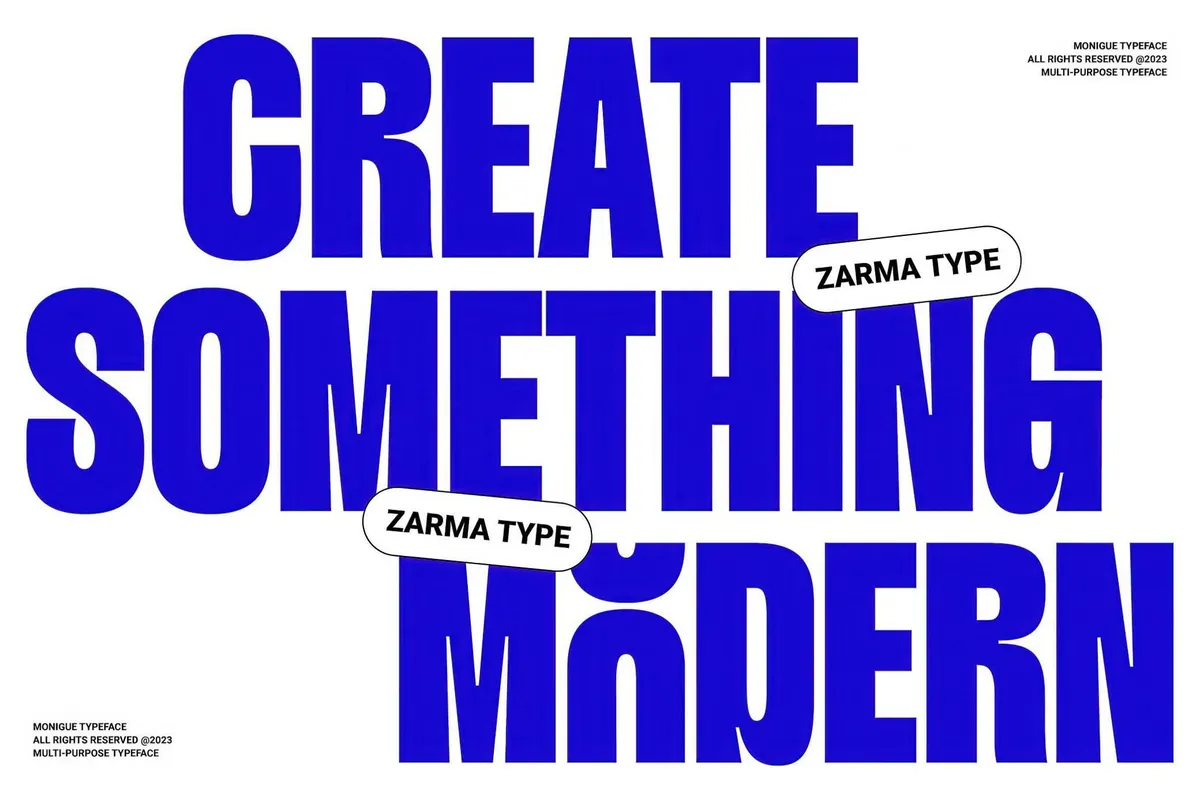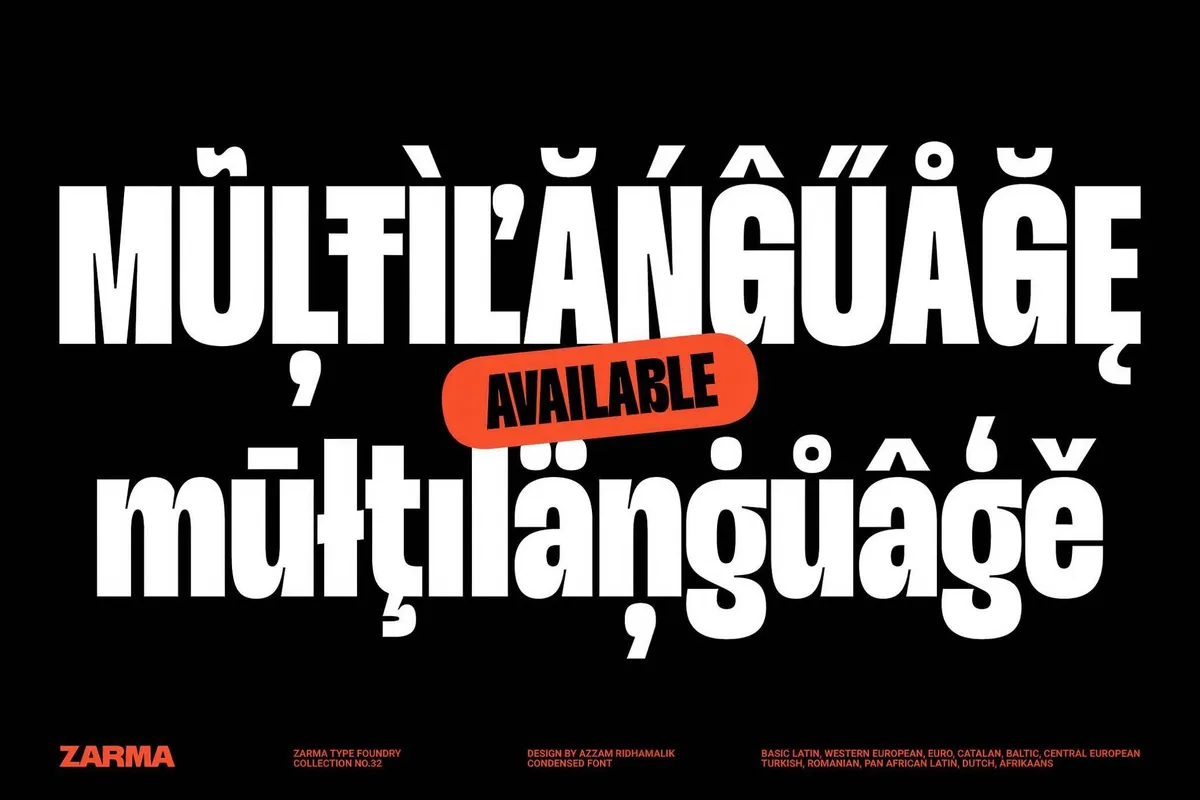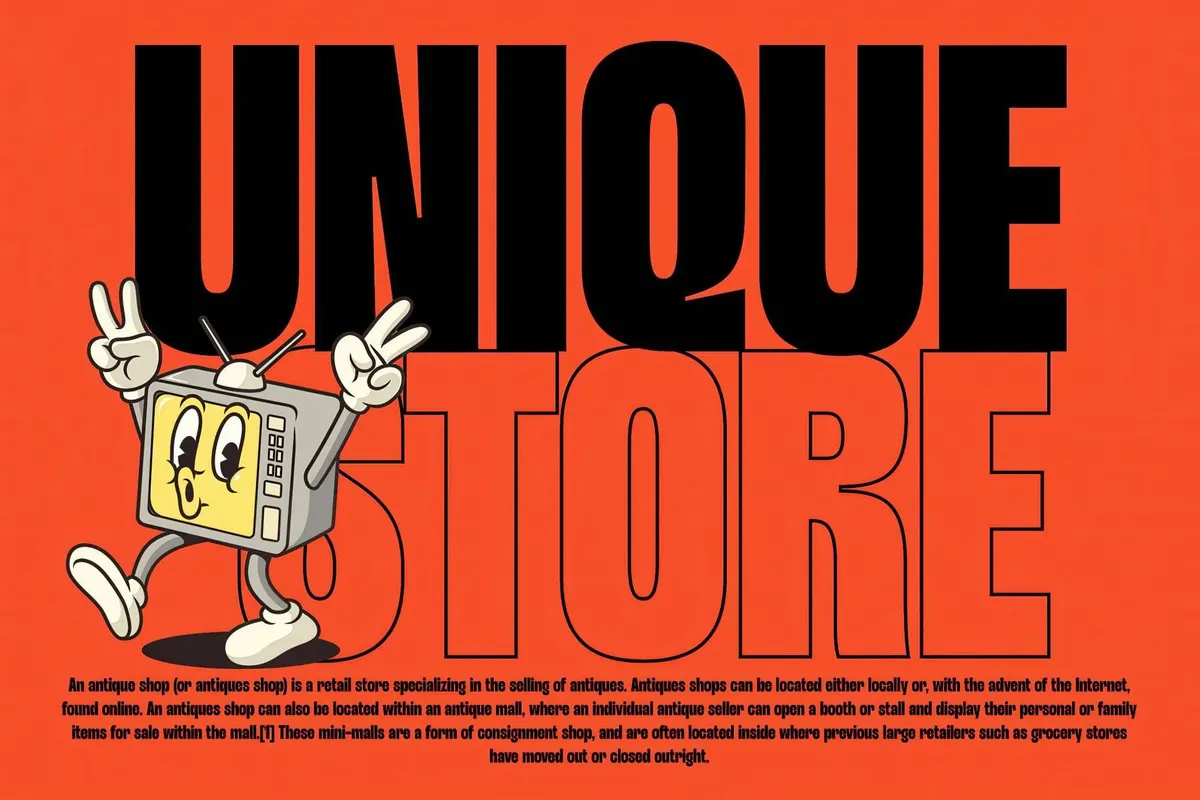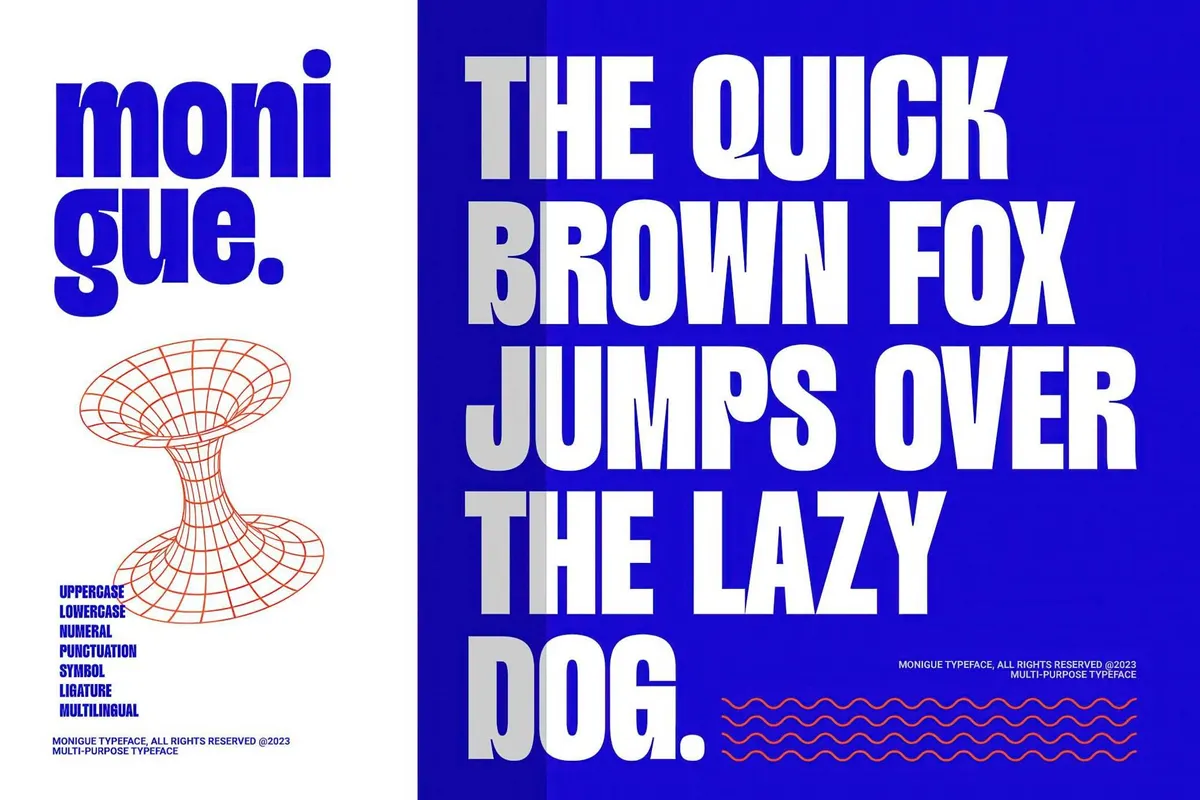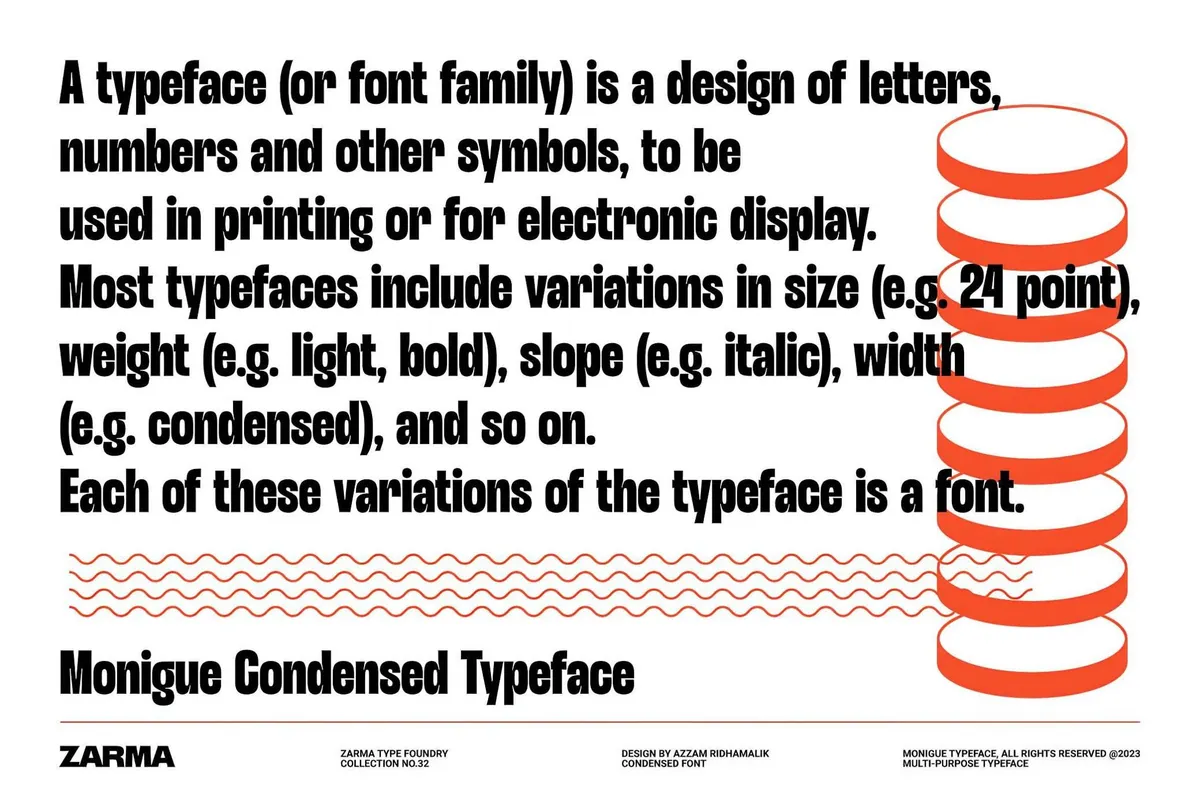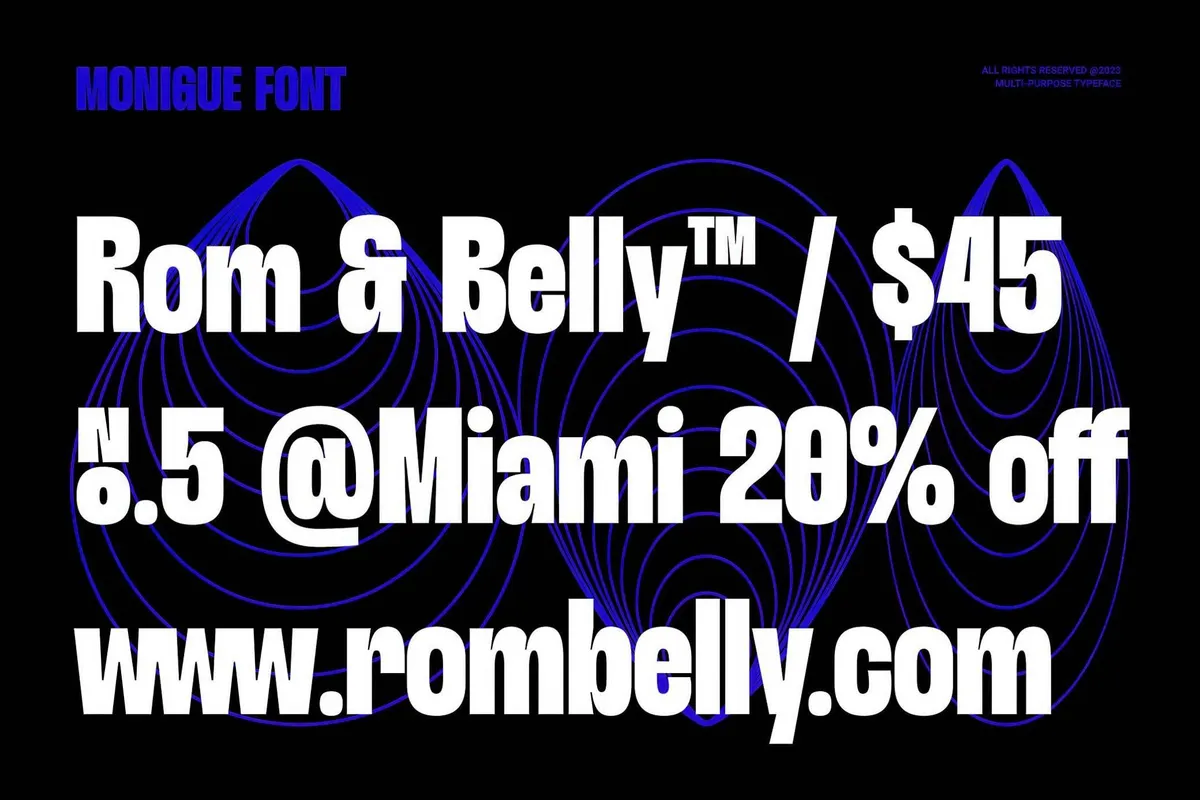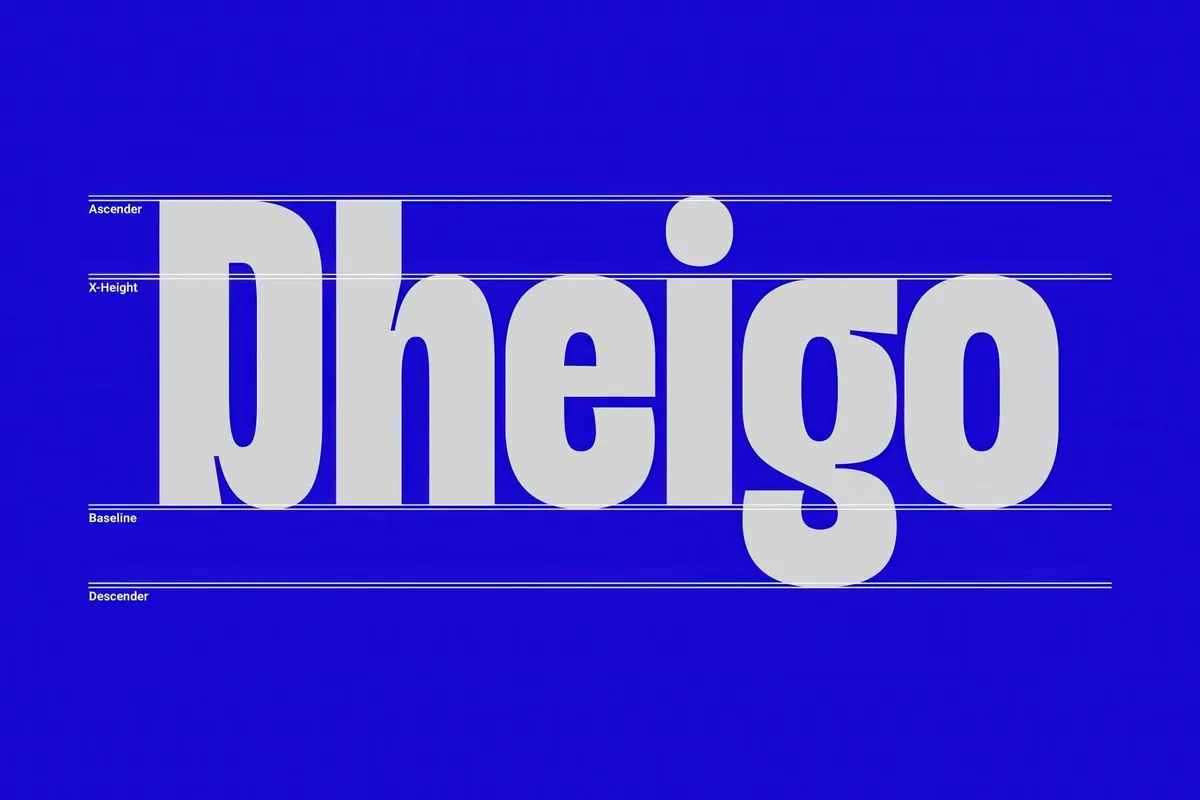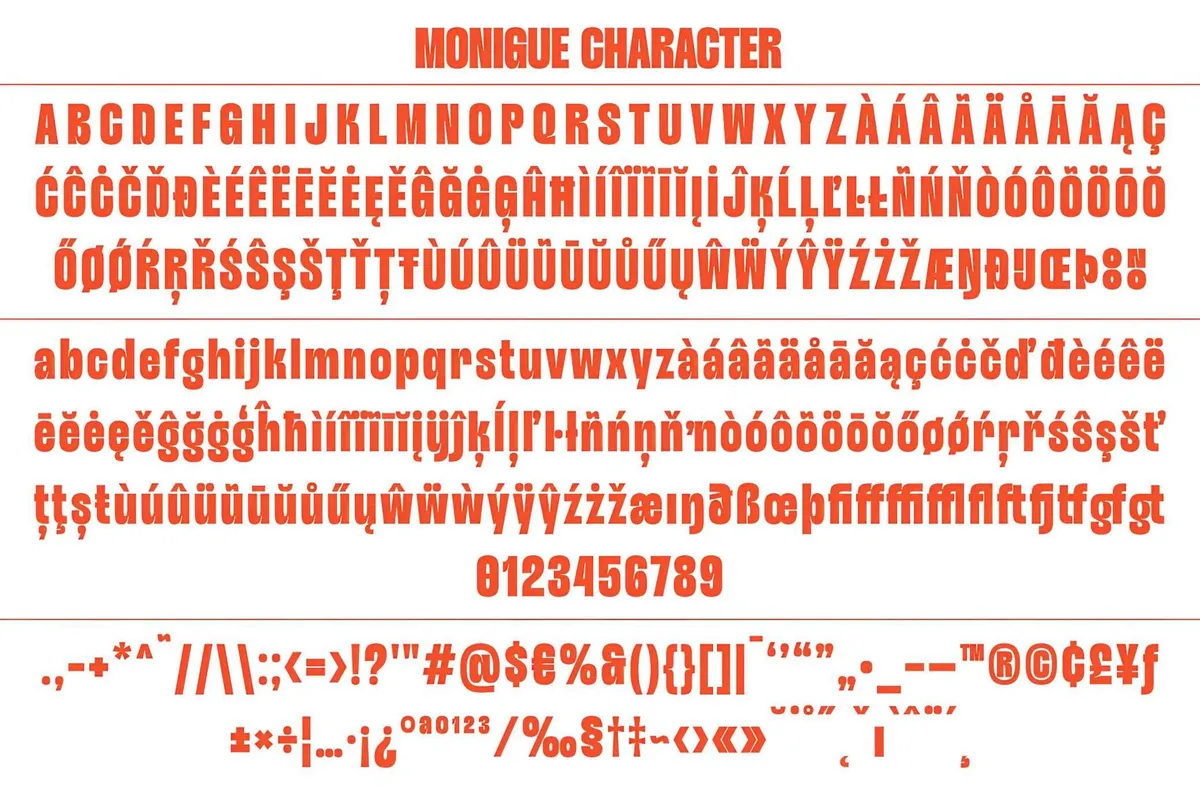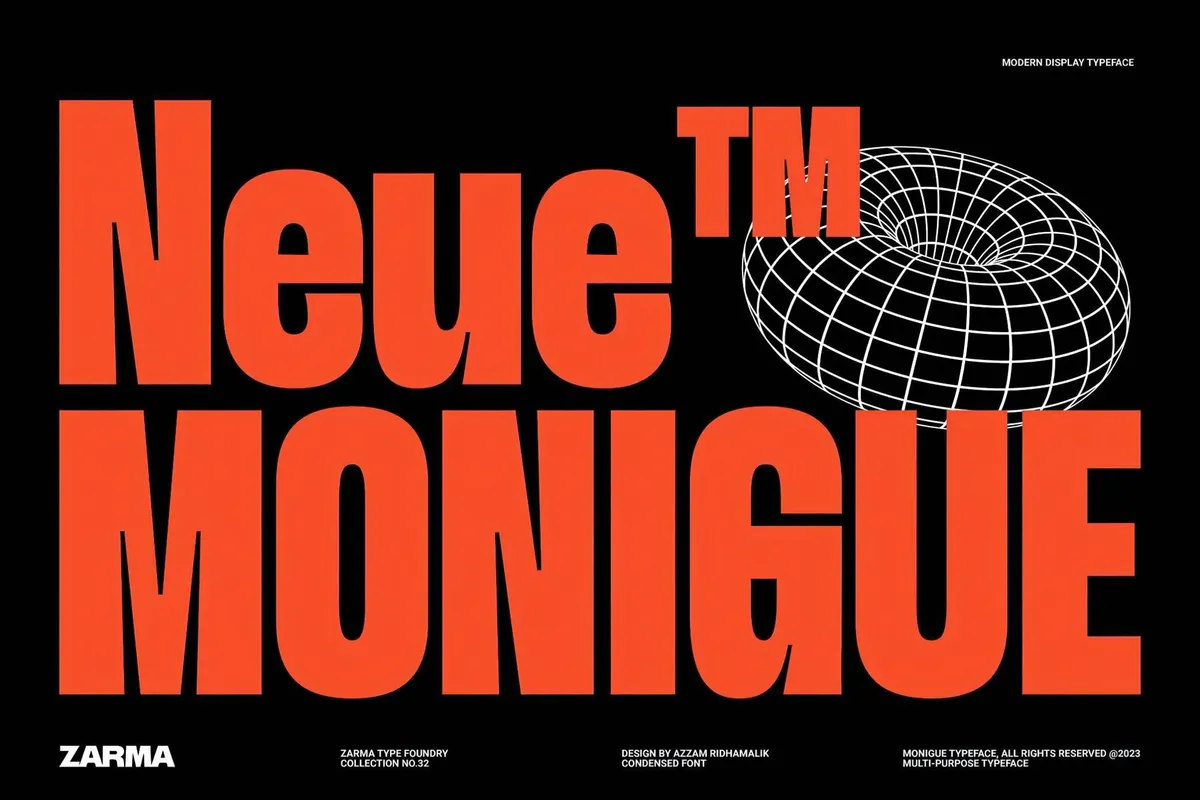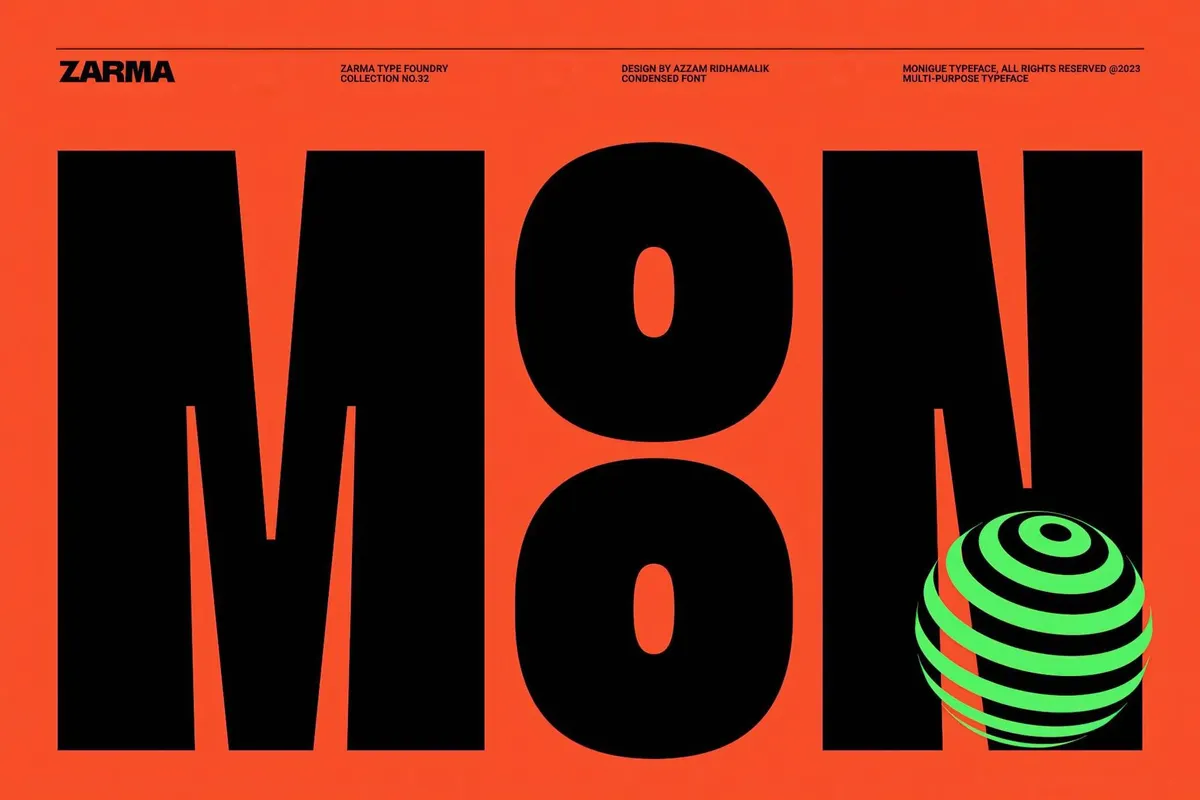
Monigue — Condensed Sans Serif Font
Monigue
Monigue is the condensed sans that looks like it just stepped off a techno runway, ready to throw elbows on a rave flyer or drop jaws on a branding deck. It’s big, bold, and strutting straight out of a Y2K future where Swiss Modernism went to fashion school and never looked back. With over 370 glyphs and support for 88+ languages, Monigue talks global while walking like a heavyweight. It’s got the OpenType chops, the ligatures, the multilingual manners, and the kind of all-caps swagger you want to light up posters, album covers, or homepage headers.